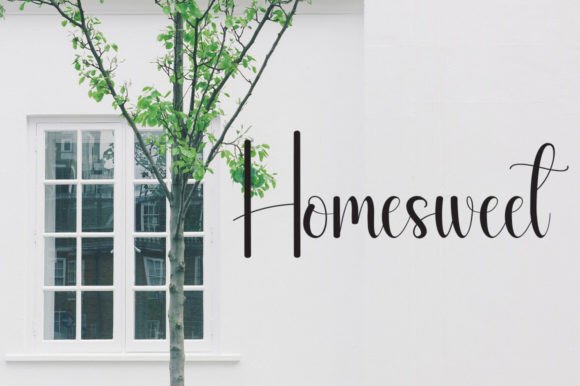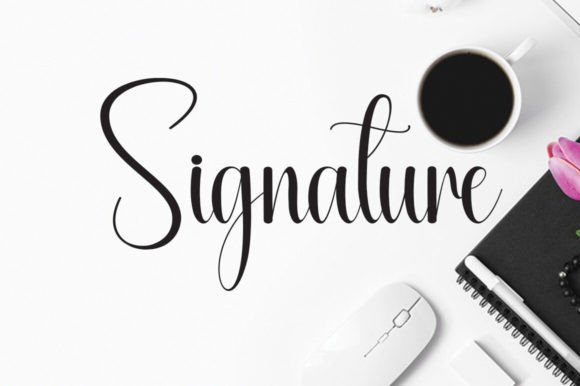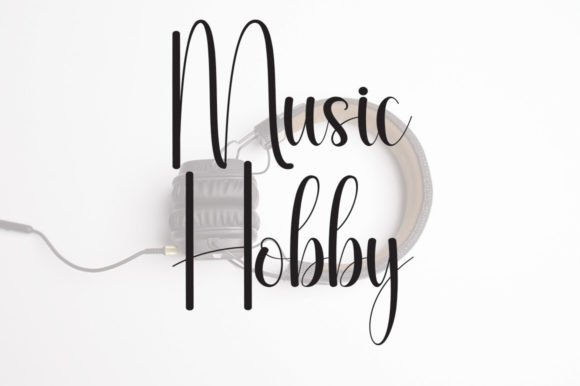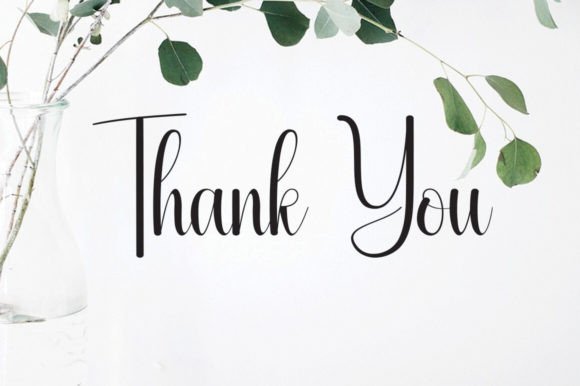
The Enchanting ‘Beautiful’ Font: Elevate Your Designs with Whimsy and Romance
In the world of typography, few fonts capture the essence of romance and whimsy as effortlessly as the ‘Beautiful’ font. This delightfully cursive handwritten font is a treasure trove of sweet charm, perfect for designers and crafters looking to infuse their projects with a touch of elegance and serenity. With its refined curves and gentle swoops, ‘Beautiful’ is poised to become your go-to font for a myriad of design concepts that demand a dash of romantic beauty.
The Characteristics of ‘Beautiful’ Font
The ‘Beautiful’ font is a masterclass in typographic design, boasting a range of characteristics that set it apart from other fonts in its class. Some of its most notable features include:
- Delightfully Cursive Handwritten Style: The ‘Beautiful’ font features a flowing, cursive script that exudes a sense of whimsy and playfulness, making it perfect for designs that require a touch of personality.
- Refined Curves and Gentle Swoops: The font’s curves and swoops are meticulously crafted to create a sense of fluidity and movement, lending a touch of romantic beauty to any design.
- Elegant and Serene Aesthetic: The ‘Beautiful’ font has an unmistakable elegance and serenity that makes it perfect for designs that require a sense of sophistication and refinement.
Uses of the ‘Beautiful’ Font
The versatility of the ‘Beautiful’ font makes it an excellent choice for a wide range of design projects, including:
- Wedding and Event Invitations: Add a touch of romance and whimsy to your wedding and event invitations with the ‘Beautiful’ font, creating a lasting impression on your guests.
- Branding and Packaging: Use the ‘Beautiful’ font to create eye-catching branding and packaging designs that exude elegance and sophistication.
- Stationery and Journaling: Bring a touch of personality to your stationery and journaling projects with the ‘Beautiful’ font, perfect for crafters and stationery enthusiasts.
- Digital and Print Media: The ‘Beautiful’ font is perfect for use in digital and print media, including social media graphics, blog posts, and magazine articles.
Tips for Using the ‘Beautiful’ Font
To get the most out of the ‘Beautiful’ font, consider the following tips:
- Pair with Complementary Fonts: Combine the ‘Beautiful’ font with complementary fonts to create visually appealing typography that adds depth and interest to your design.
- Experiment with Colors and Textures: Don’t be afraid to experiment with different colors and textures to add an extra layer of personality to your design.
- Use for Headings and Titles: The ‘Beautiful’ font is perfect for use in headings and titles, adding a touch of elegance and sophistication to your design.
In conclusion, the ‘Beautiful’ font is a versatile and elegant addition to any designer’s toolkit. With its refined curves, gentle swoops, and delightfully cursive handwritten style, this font is poised to become your go-to choice for a wide range of design projects. Whether you’re a designer, crafter, or simply a typography enthusiast, the ‘Beautiful’ font is sure to captivate and inspire. So why wait? Add a sprinkle of joyous charm to your projects with the ‘Beautiful’ font and discover a world of sweet whimsy and romantic beauty.